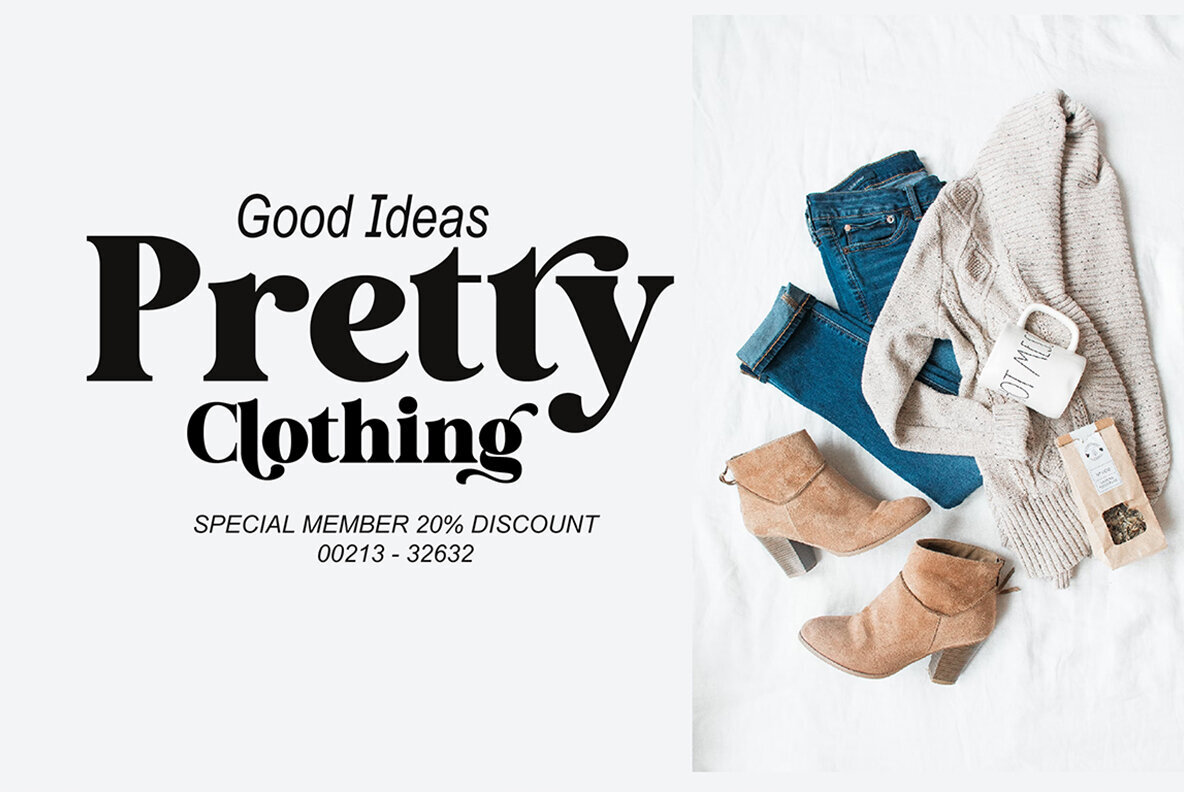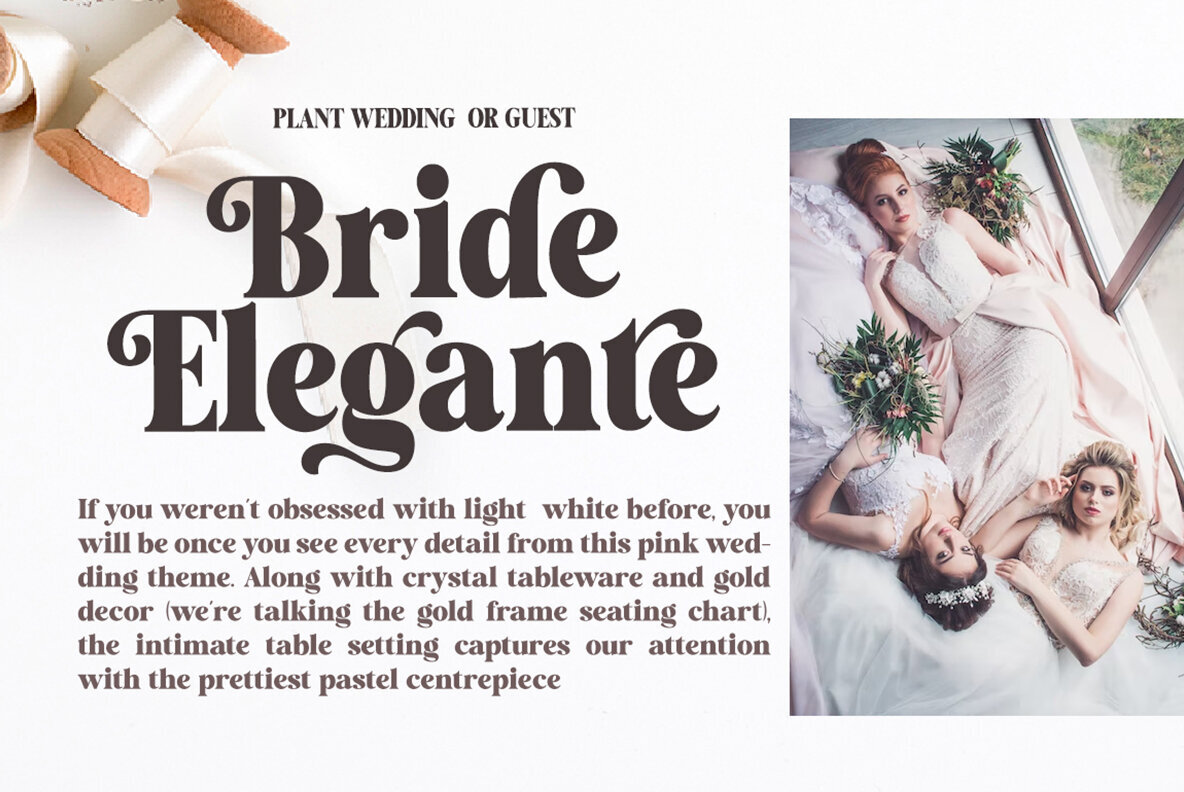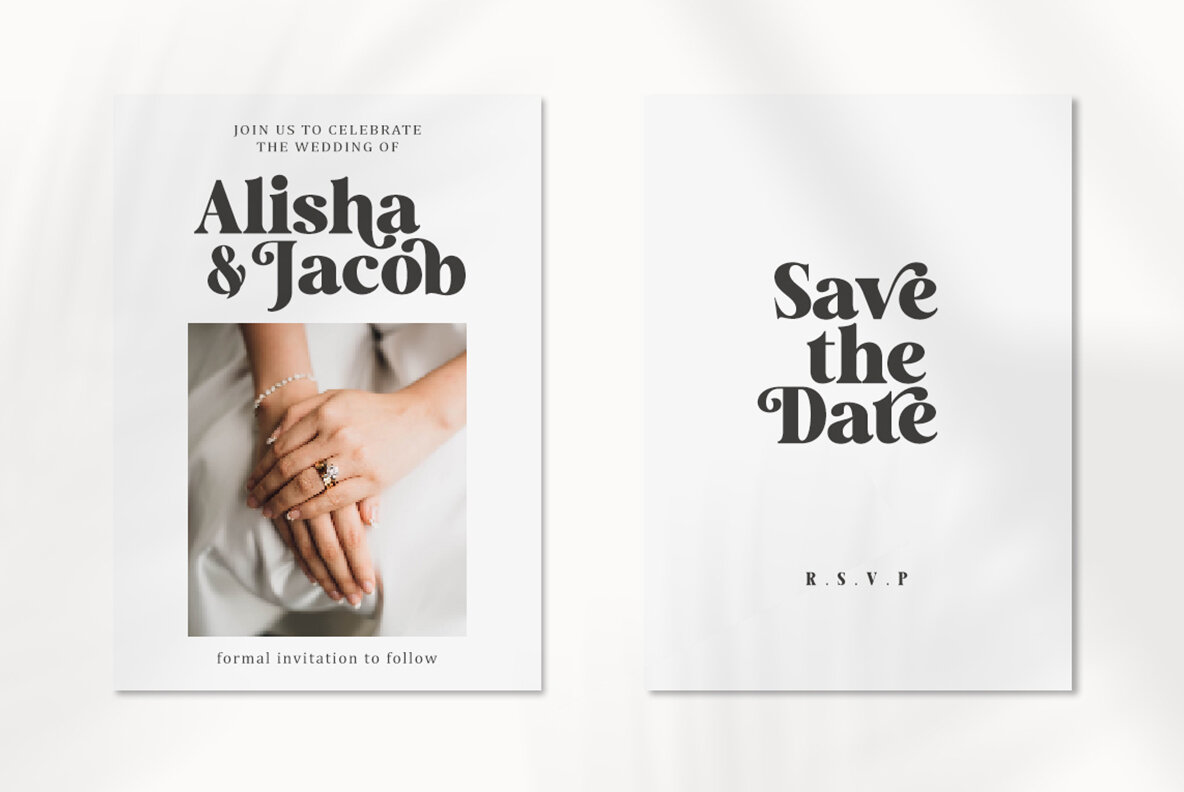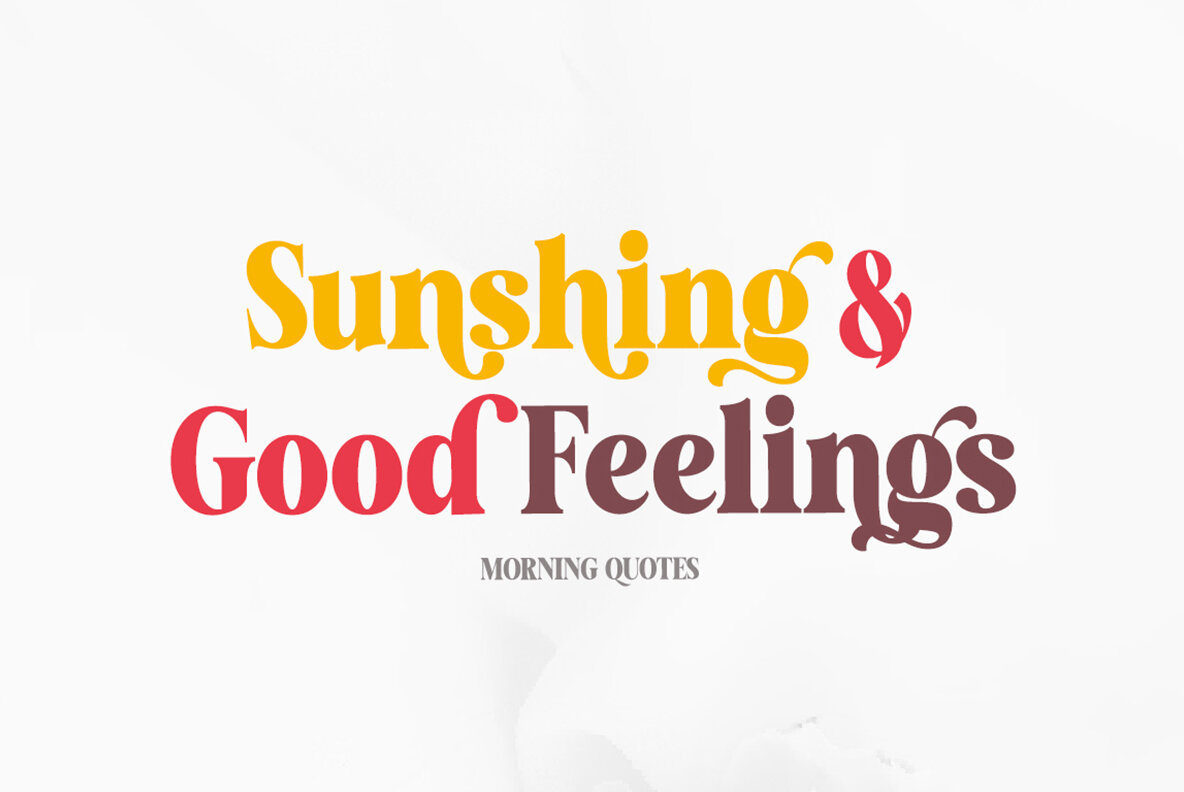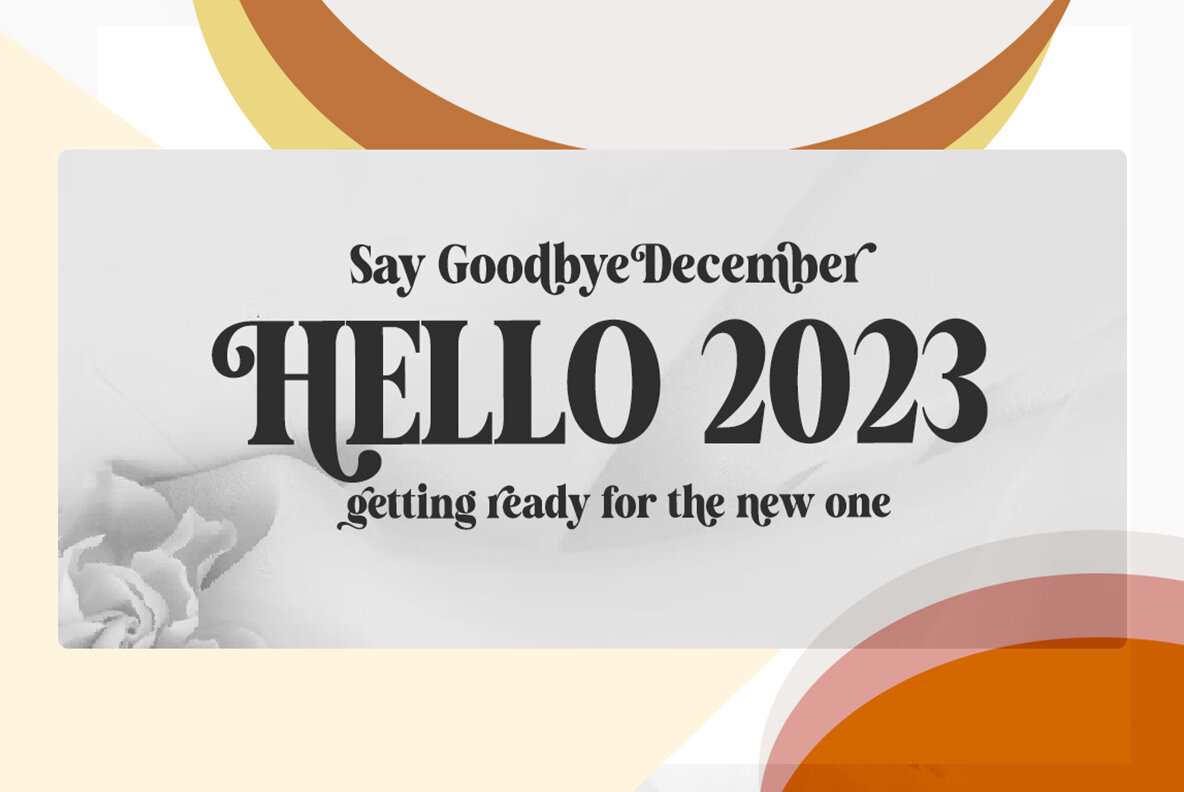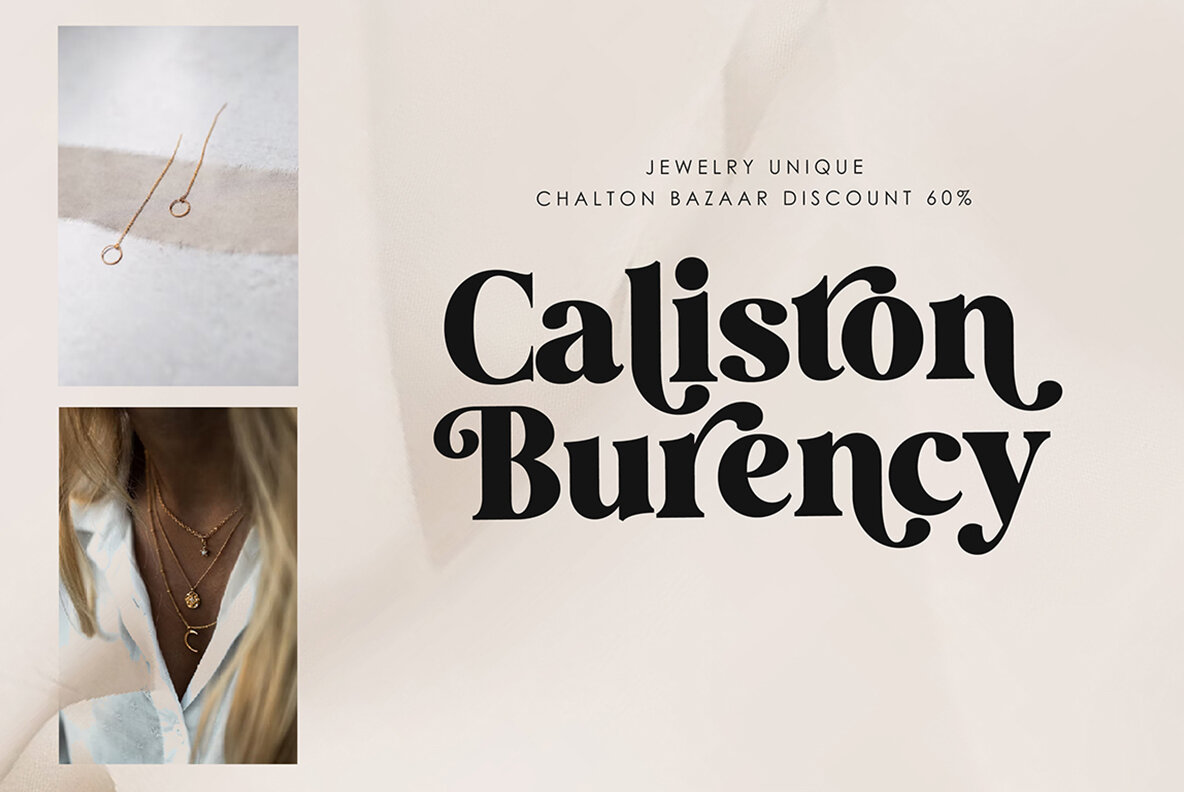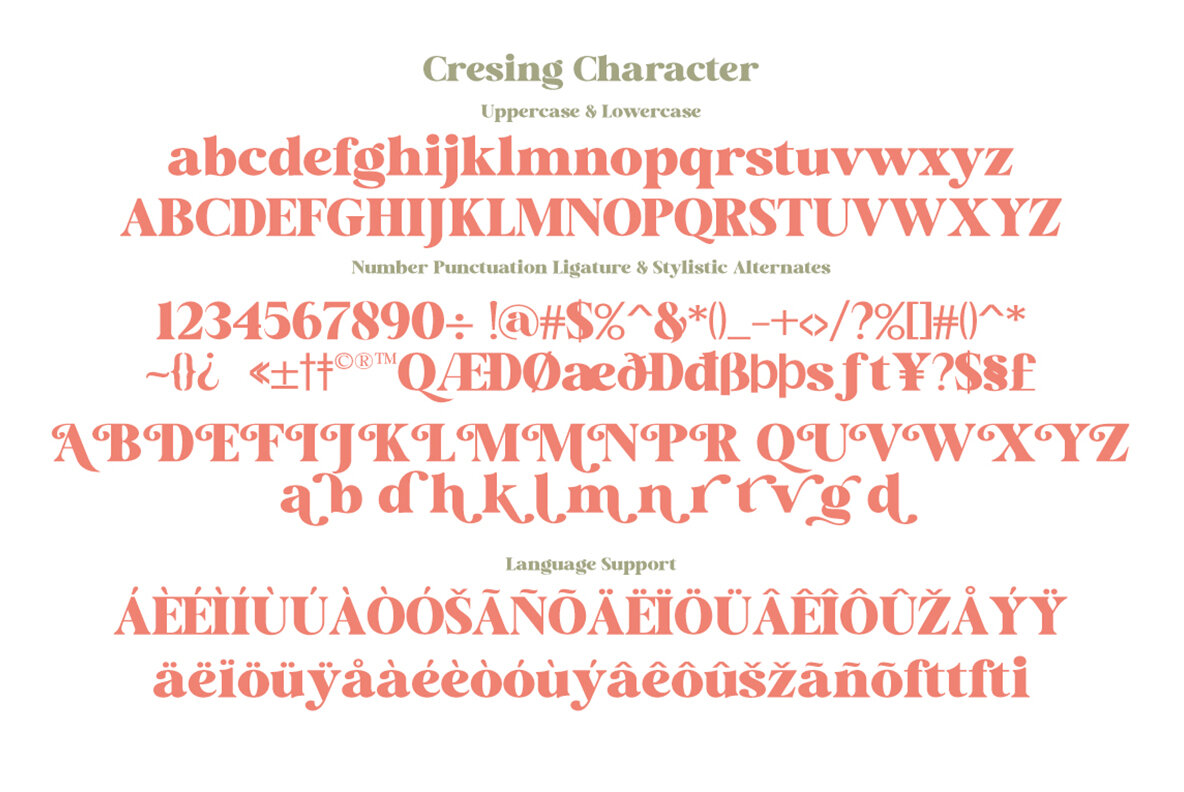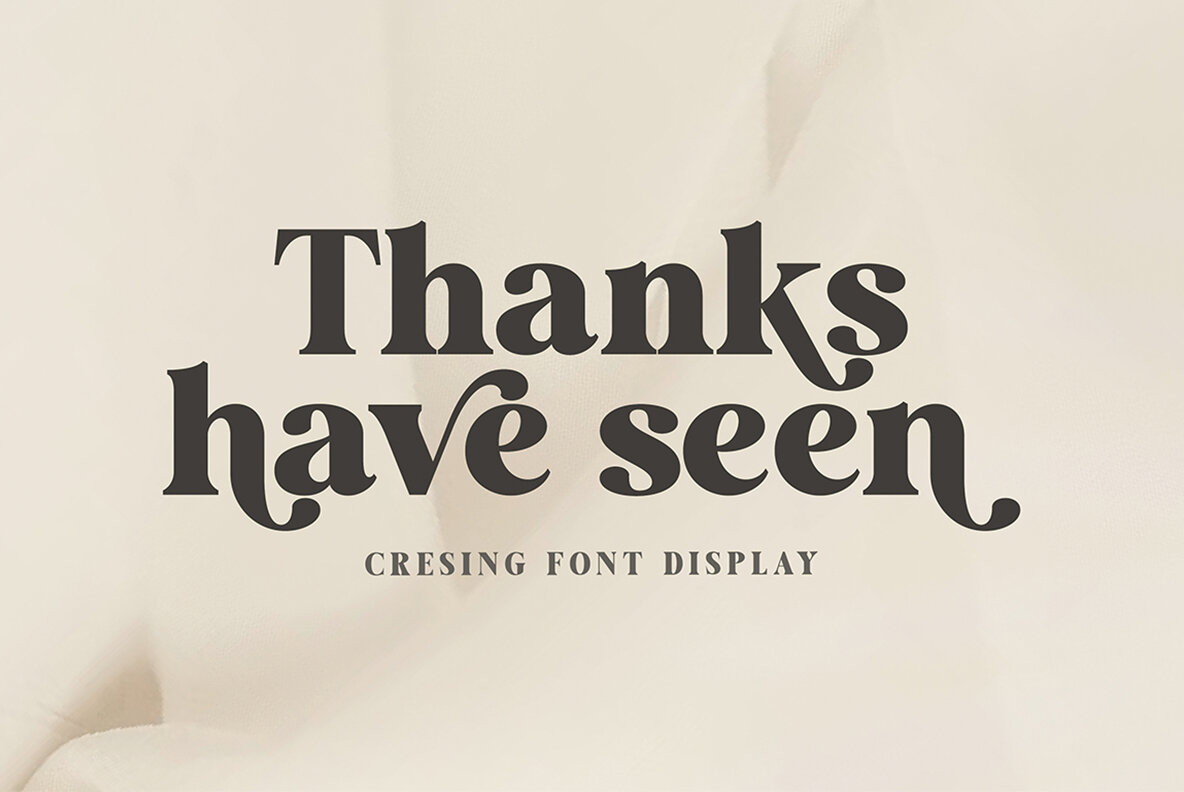
Cresing Font
Cresing Regular
Cresing is a versatile font that seamlessly fits into a variety of creative projects, such as branding, poster design, t-shirts, invitations, children's designs, and editorial layouts. Renowned for its adaptability, Cresing offers numerous styles, including unique fasteners, and is equipped with OpenType features like style sets, character variants, initial and final forms, as well as multilingual support. To utilize alternative glyphs, access to an older version of Photoshop may be required to copy and paste the glyph from the included PSD file. Alternatively, use the Glyph Panel available in Photoshop CC or any version of Adobe Illustrator.Cresing: Versatile Font for Modern and Classic Creations